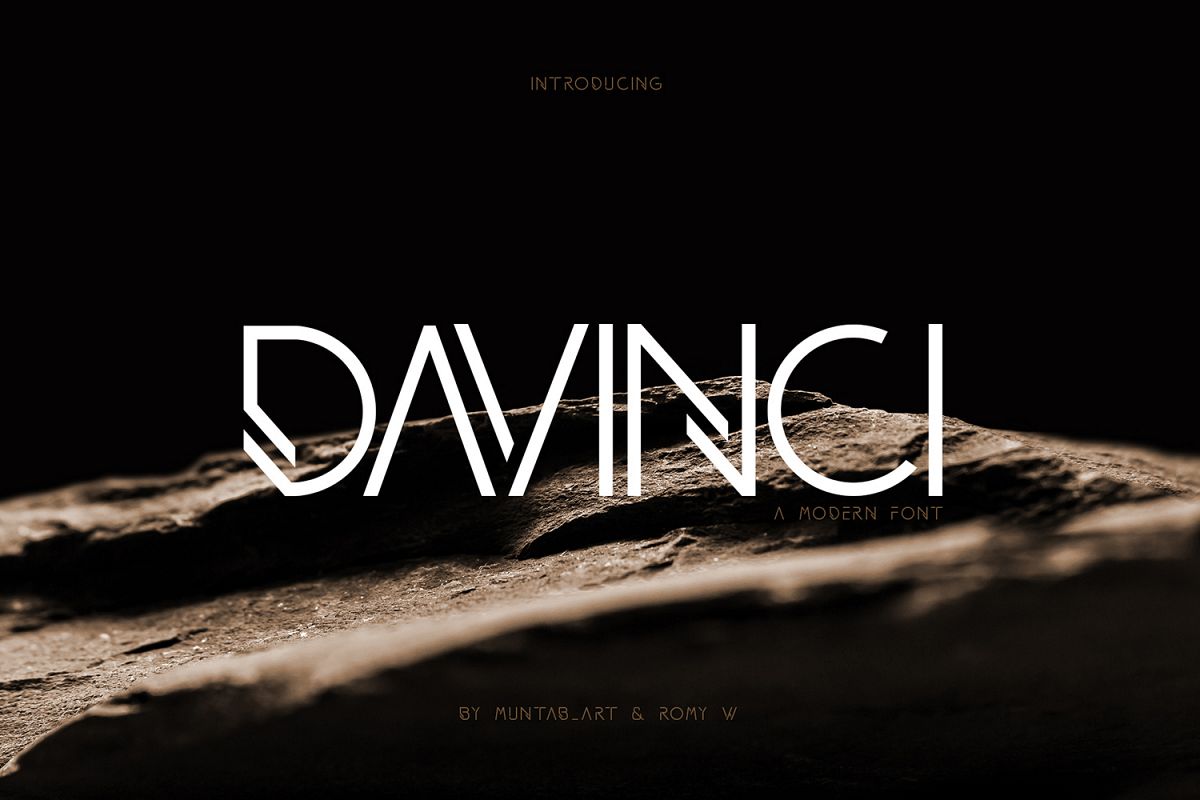
Created By Muntab Art
DAVINCI FONTS | MODERN SANS
DAVINCI fonts includes uppercase letters, numerals, a large range of punctuation. sans serif font with modern style. Created for poster, web design, branding, illustrations, badges and some other works.